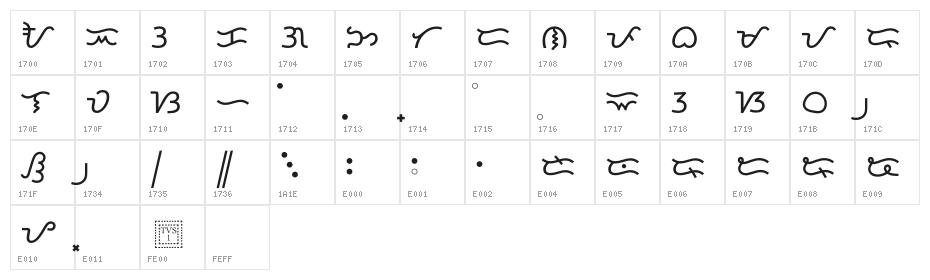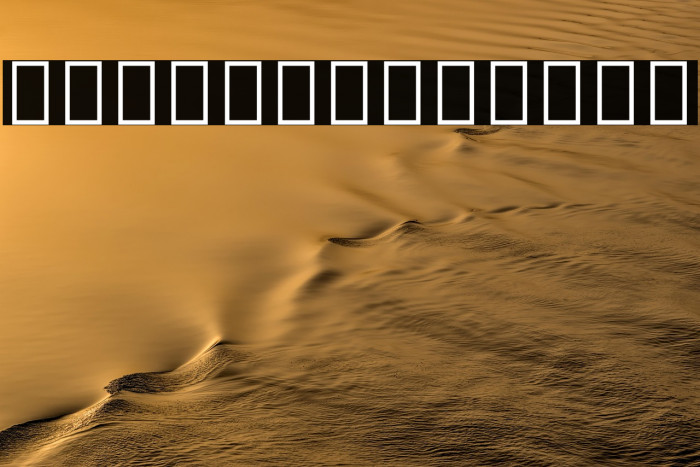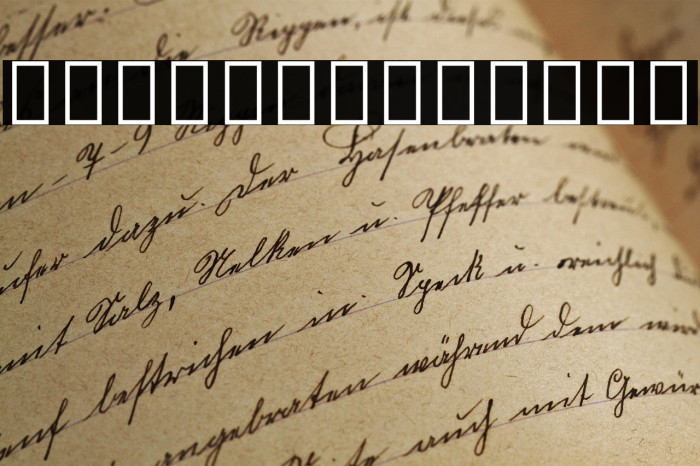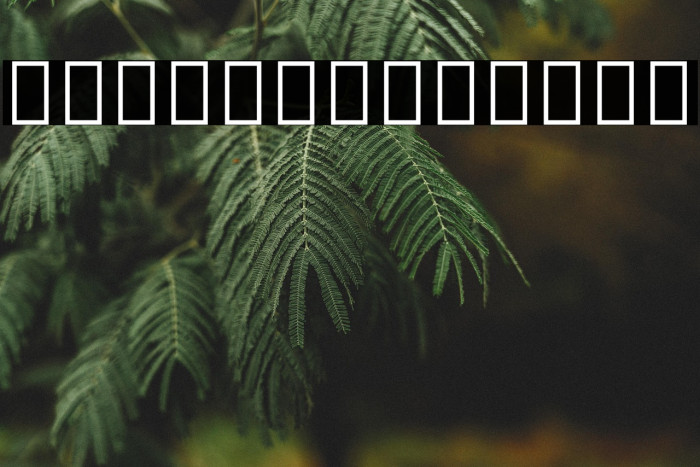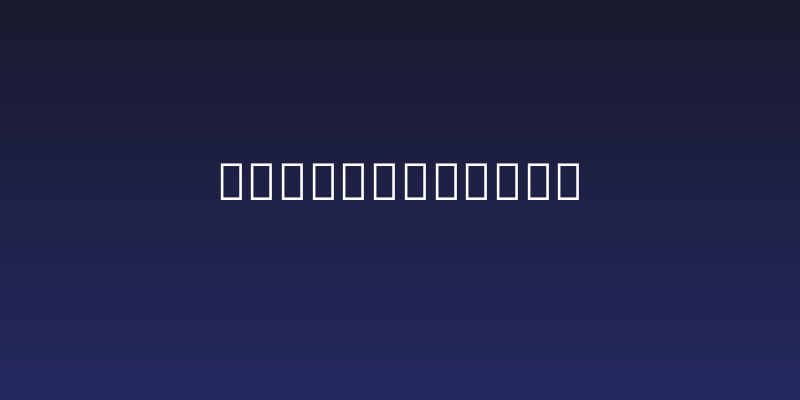
OpenBaybayin Font
| Anwendungsfall | Logos, Cultural projects, Educational materials |
| Vorgeschlagene Projekte | Ideal for cultural projects, educational materials, and branding that seeks to incorporate traditional Filipino elements with a modern twist. |